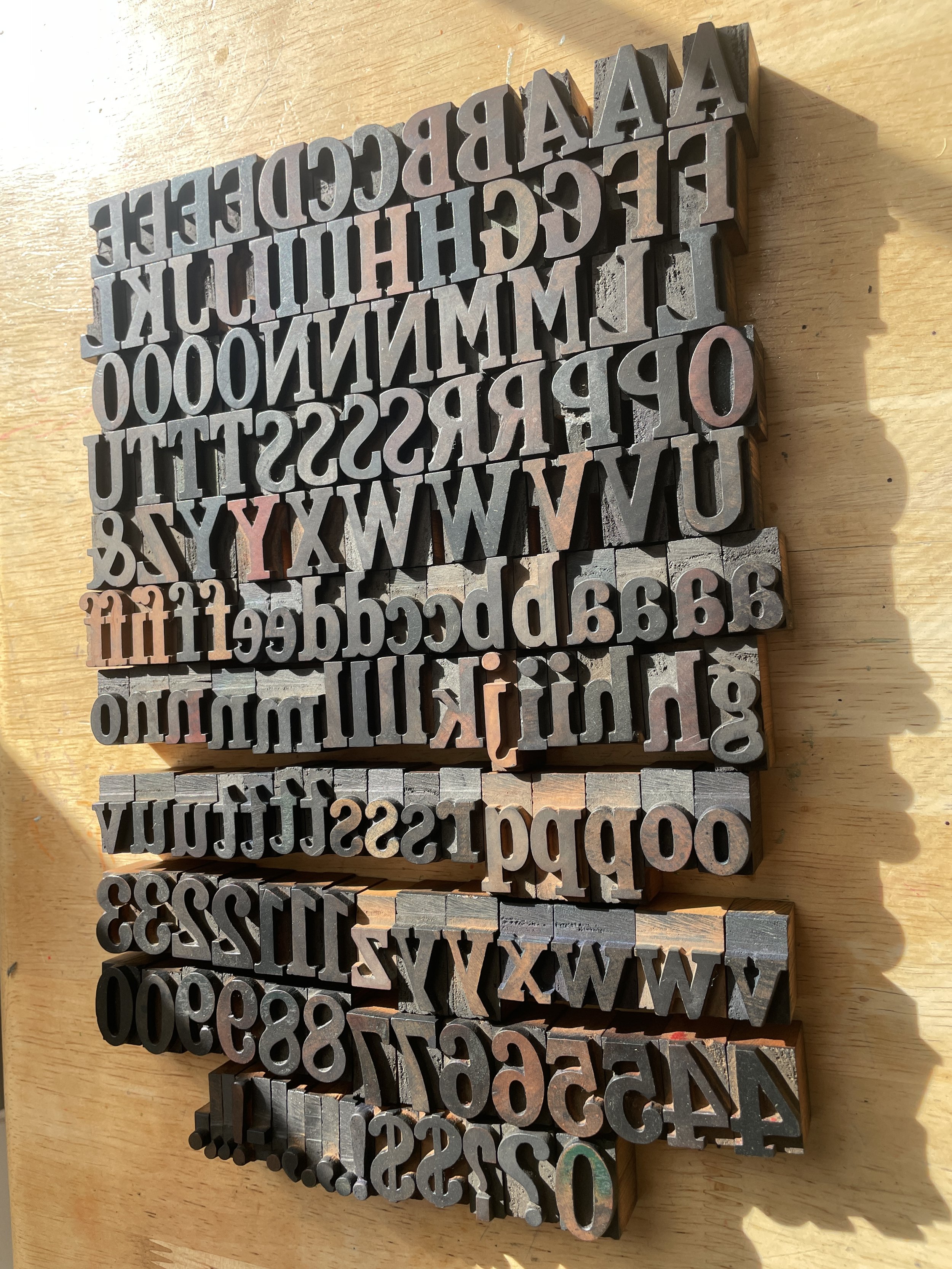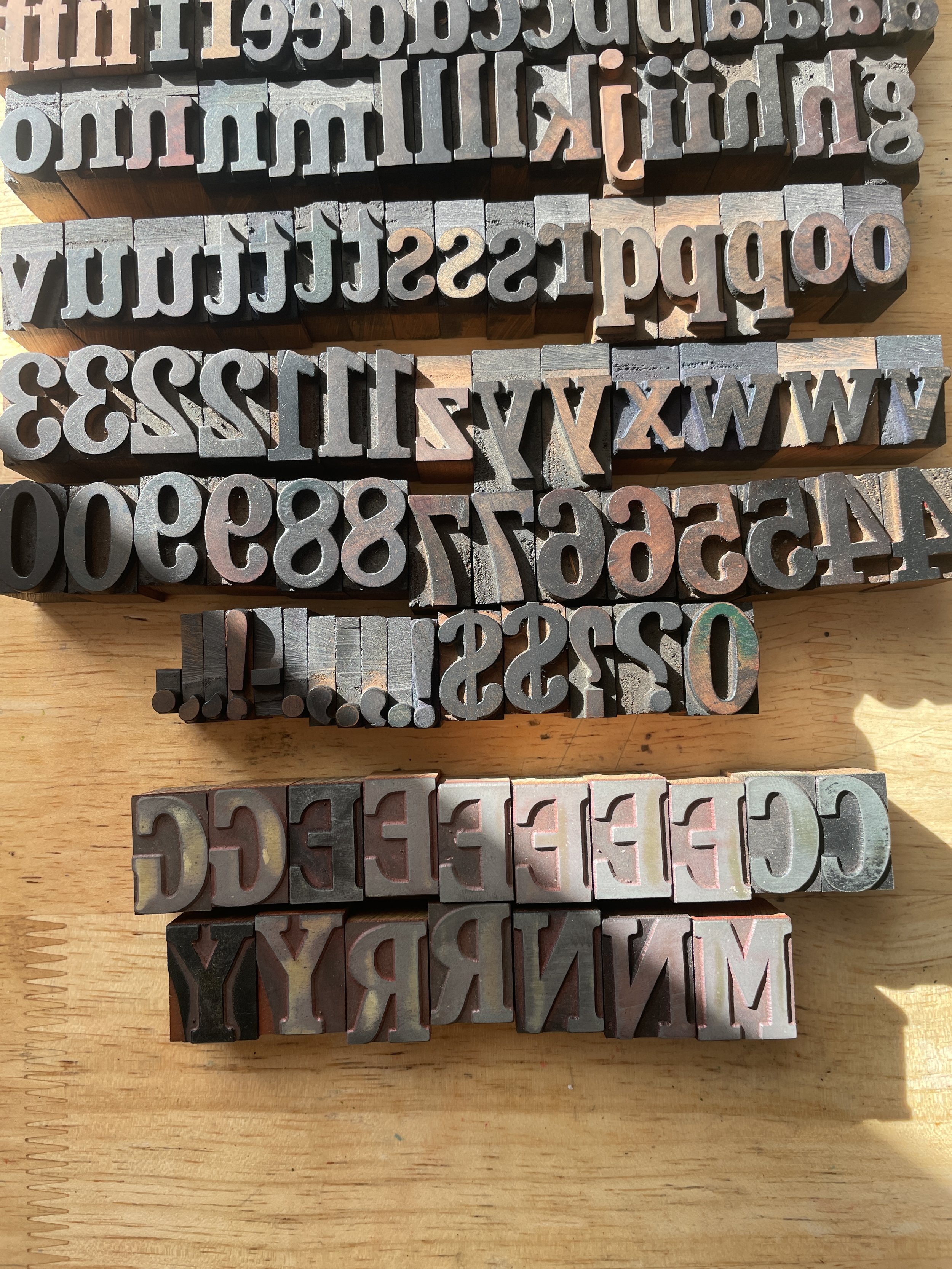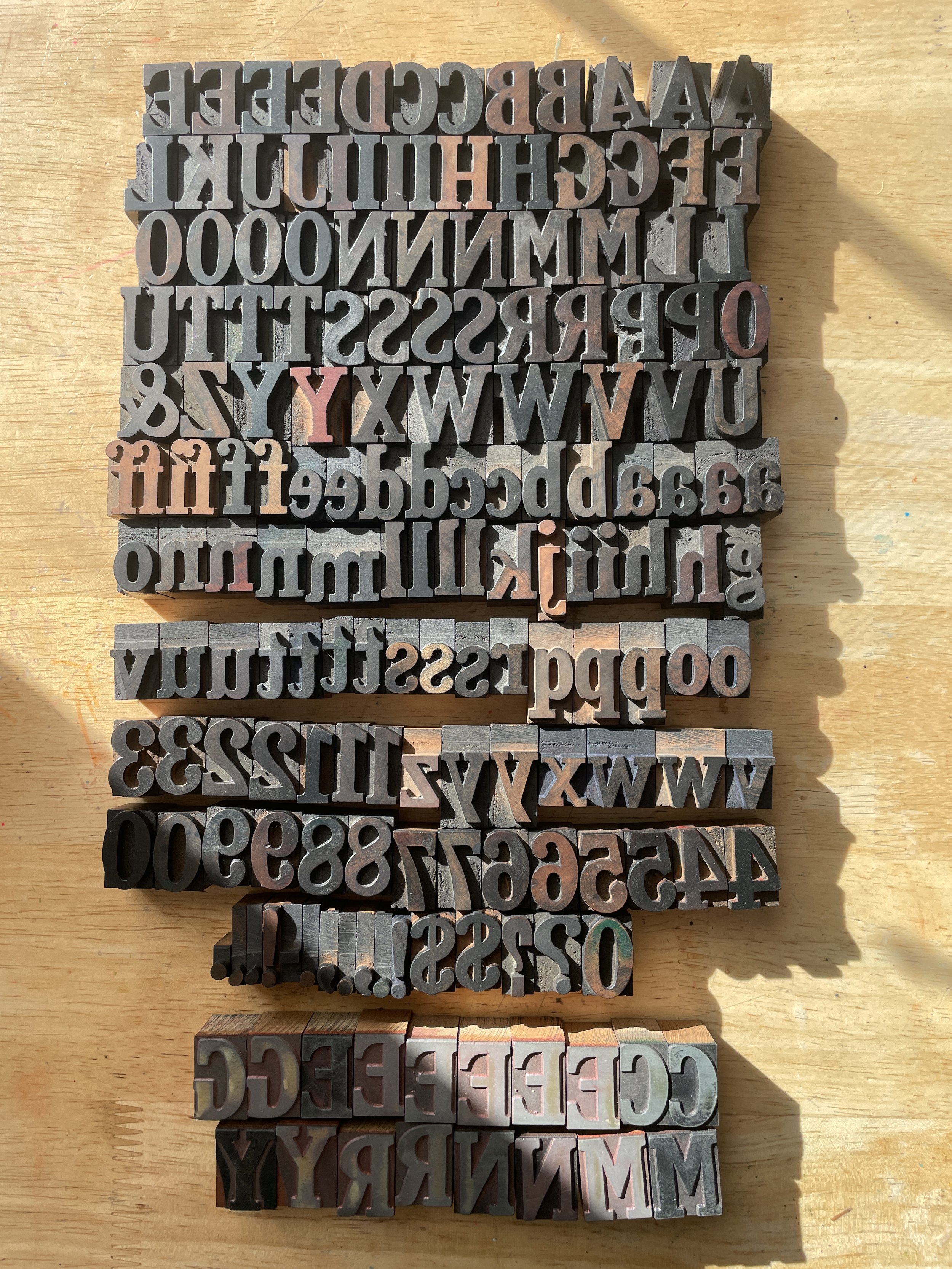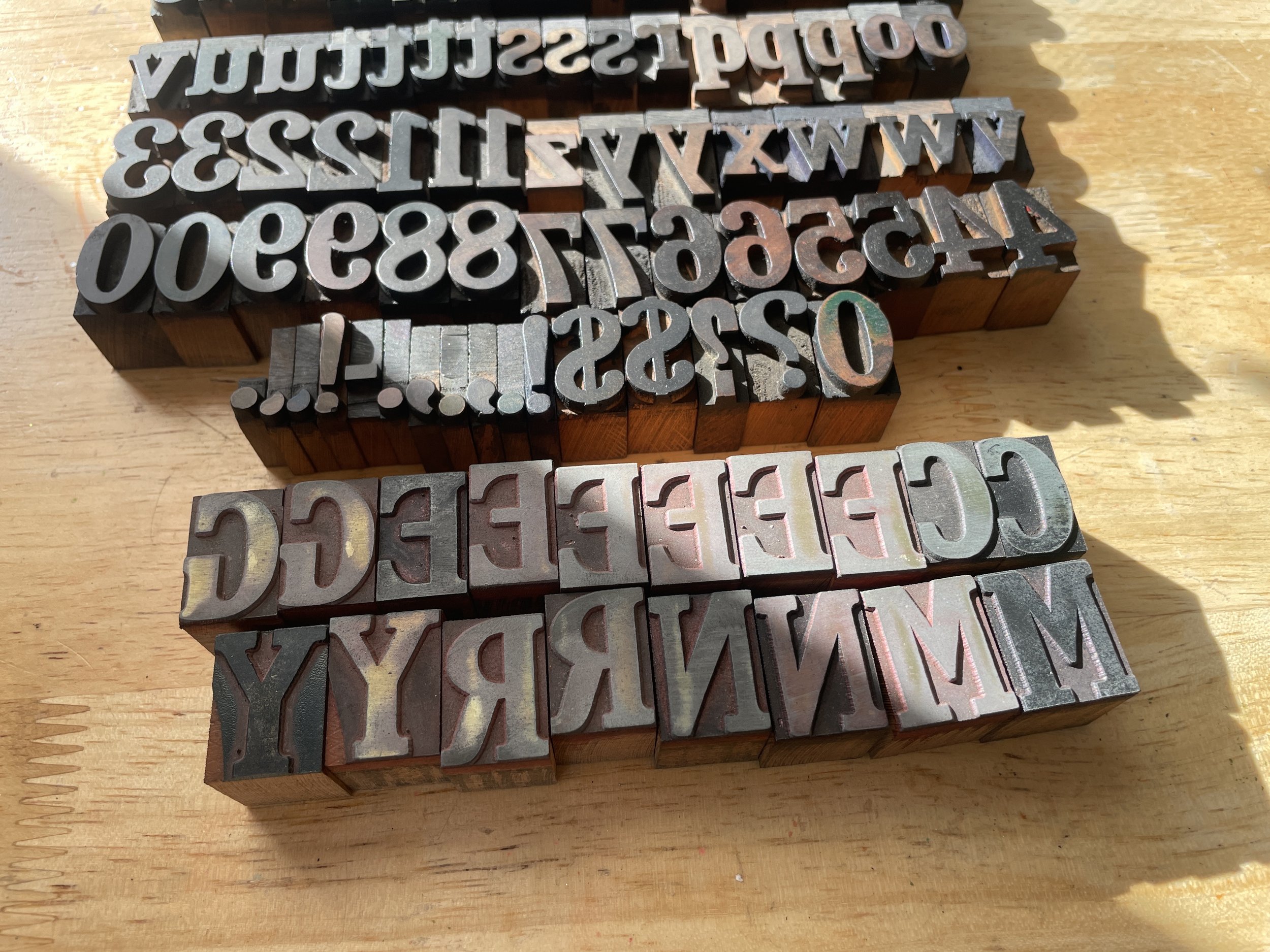
6 Line American Serif Wood Type Font (W45)
A beautiful early twentieth century Hamilton 6 line serif wood type font with lowercase. Includes all shown, including the matching metal-faced additional sorts shown at the bottom.